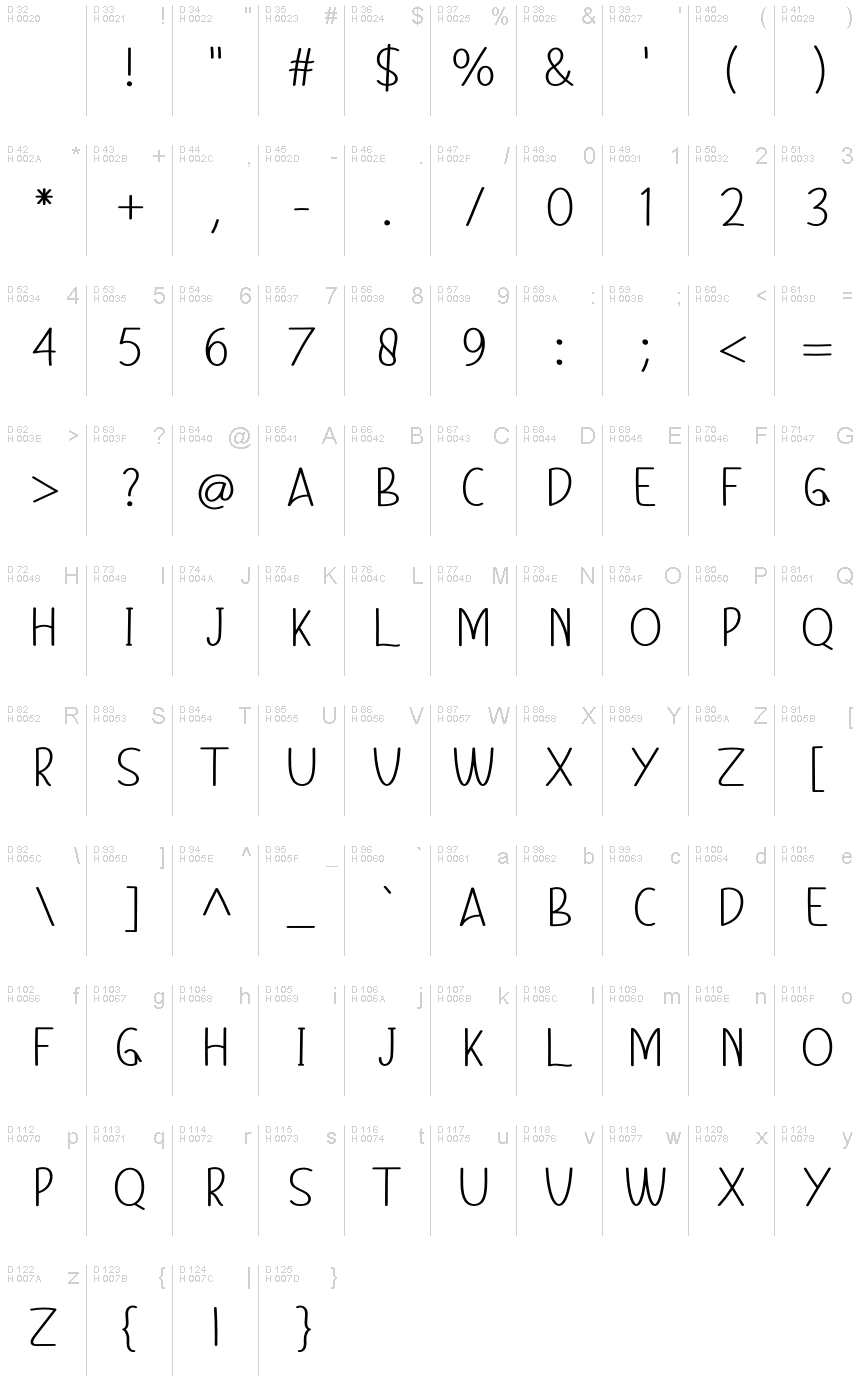
Smart Unique
Smart Unique is a captivating handwritten font that exudes a harmonious blend of sophistication and playfulness. Crafted by designer Andi Moz, this font boasts a charming, organic aesthetic that effortlessly bridges the gap between formal and casual styles.
The fluid, expressive strokes and subtle variations in letter forms imbue the font with a unique personality, making it an excellent choice for a wide range of design applications, from elegant wedding invitations to vibrant branding and packaging.
Smart Unique's versatility and eye-catching flair make it a versatile tool for designers seeking to add a touch of refined individuality to their projects.